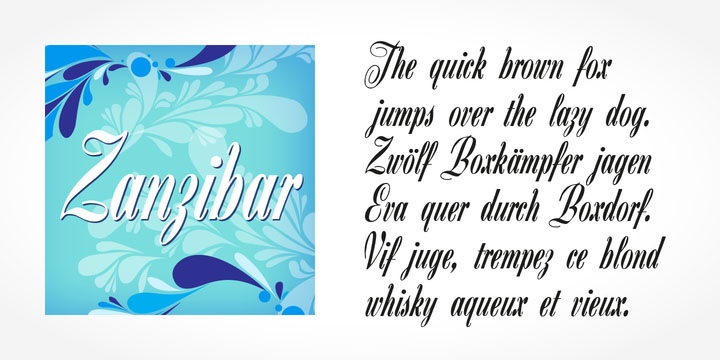
Zanzibar Font
Zanzibar Font is perfect for tropical resort branding, exotic travel marketing, spice trade communications, African cultural projects, island tourism promotions, tropical restaurant signage, adventure travel campaigns, cultural heritage materials, exotic destination marketing, and tropical lifestyle branding.
Zanzibar Font is exciting because it captures the exotic mystique and cultural richness of the legendary spice island with its distinctive letterforms that evoke the vibrant heritage and tropical allure of East African coastal culture. Its captivating character design combines exotic elegance with adventurous spirit, making it perfect for brands that want to communicate wanderlust, cultural authenticity, and the irresistible appeal of tropical paradise destinations.
The Zanzibar Font family includes Light, Regular, Medium, Bold weights, flowing Italic variations, Condensed styles, Exotic alternates, Tropical flourishes, Cultural ornaments, and Spice elements, providing designers with comprehensive tools for creating authentic exotic typography that captures the essence of tropical adventure and cultural exploration.
Zanzibar Font Free Download brings authentic tropical charm to destination marketing and cultural branding applications, featuring beautifully crafted letterforms that honor the rich heritage of African coastal culture while serving contemporary travel and hospitality market needs. This exotic typeface combines cultural authenticity with professional functionality, creating the perfect solution for travel companies, resort brands, and cultural organizations that celebrate tropical destinations and exotic experiences.
Whether you're developing tropical resort identities, designing exotic travel campaigns, creating cultural tourism materials, or producing adventure destination communications, Zanzibar Font provides the exotic foundation needed for authentic tropical positioning. Its adventurous character makes it particularly effective for luxury resorts, adventure tour operators, cultural heritage sites, and travel companies targeting sophisticated travelers seeking authentic exotic experiences.
Perfect for travel marketers, resort brand designers, cultural tourism specialists, and creative professionals working with tropical destination brands, this font offers the exotic qualities essential for successful tropical market positioning. The typeface's adventurous nature ensures consistent appeal across both digital travel platforms and traditional destination marketing materials.
Zanzibar Font includes comprehensive tropical character sets, culturally-inspired design elements, and exotic spacing that guarantees superior performance in destination design applications. Its tropical approach to typography makes it indispensable for brands celebrating exotic destinations and cultural adventure. Discover exotic paradise with Zanzibar Font Free Download and create typography that truly transports to tropical bliss.